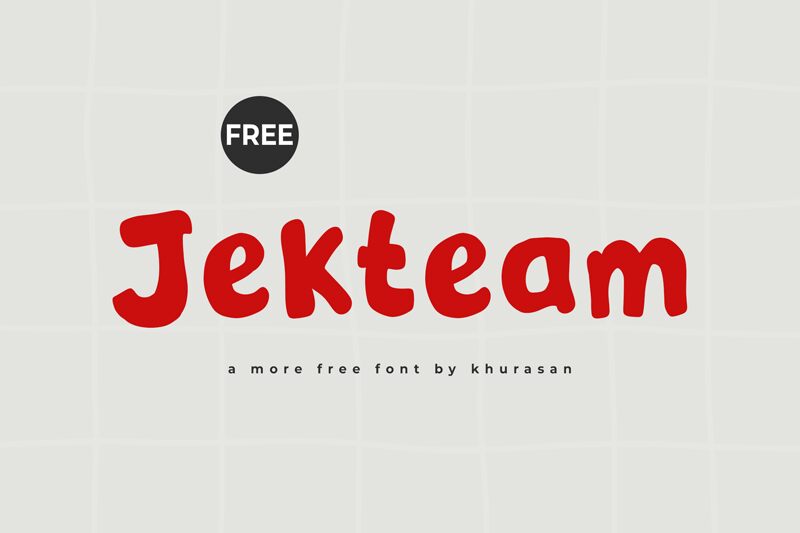
Jekteam
Jekteam font by Khurasan is a display typeface with a cartoon style and bold weight. It has a casual attitude that suits playful designs like comic books, games, and toys branding. With slightly rounded edges and uniform thickness, this fun font is approachable in appearance and modern in style.
Take advantage of this free handwritten font in designing book covers or yearbook quotes as well as game apps or websites. Use it for packaging design projects involving drinks, snacks, candies, cereals, chips, etc. Jekteam also fits decoration needs for birthday invitation cards or thematic greeting cards.